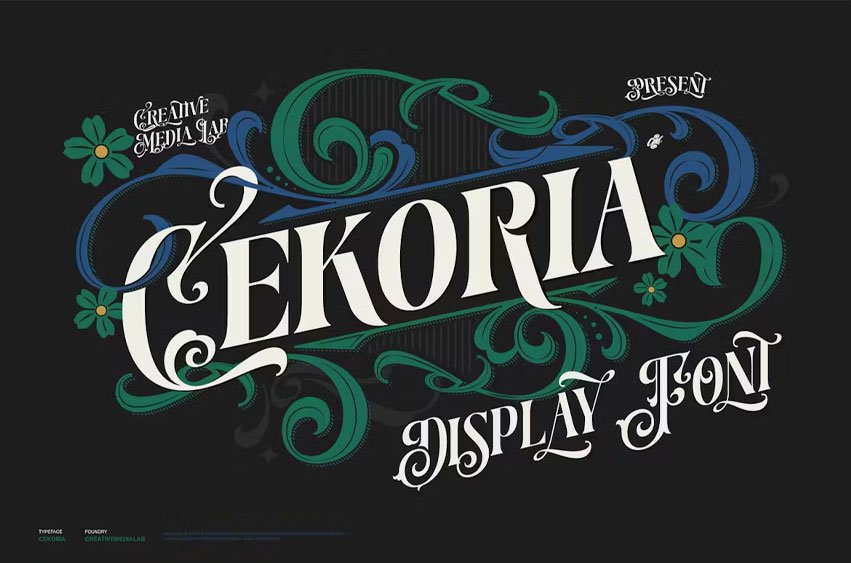
Cekoria Font is a decorative display font inspired by classic vintage signage art. This all-caps font combines a classic serif with Victorian-style lettering.
This font is perfect for creating logotypes, branding, packaging designs, and headlines.